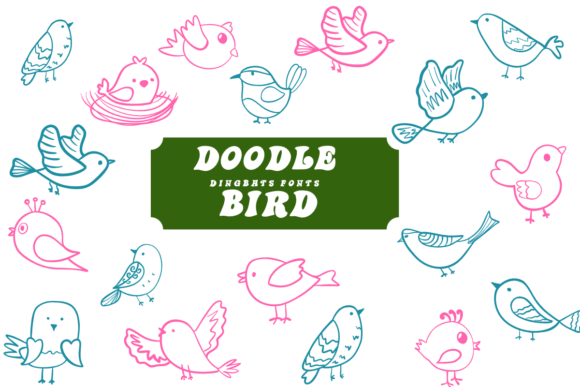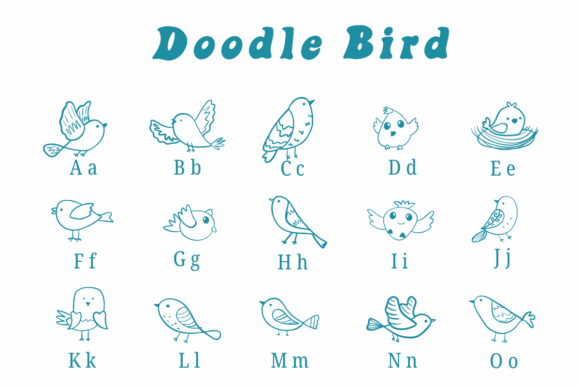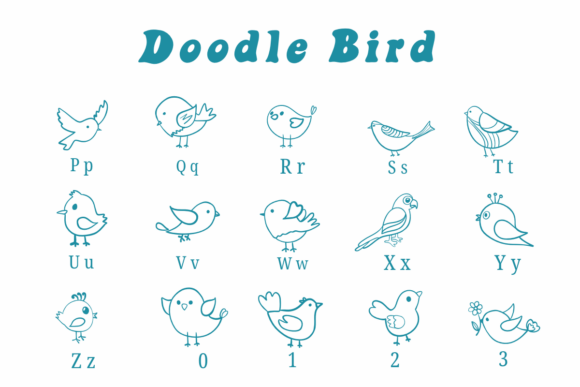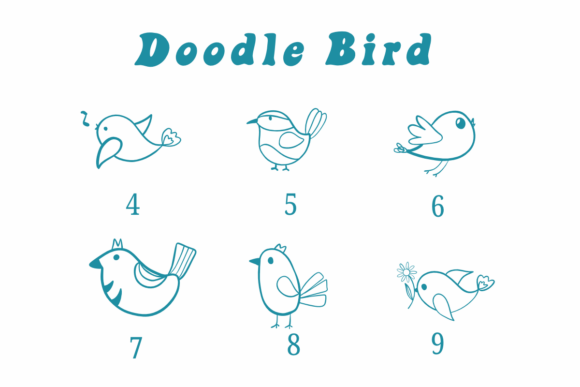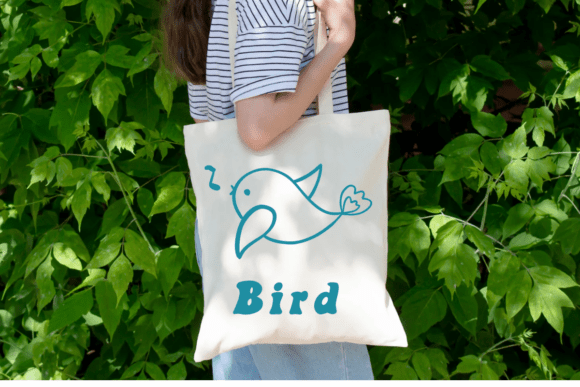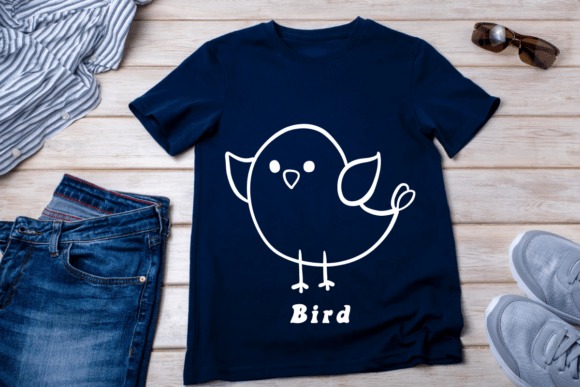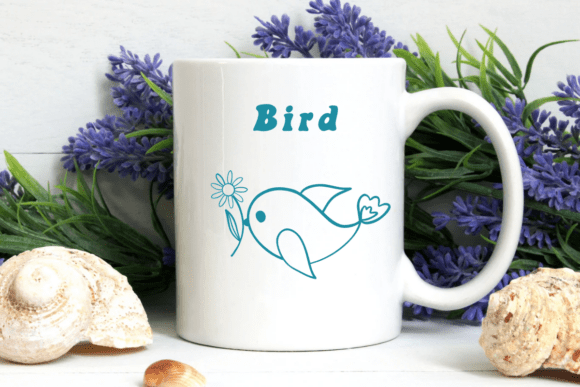
The Joy of Doodling: Bringing Imagination to Life
Have you ever sat down with a blank sheet of paper, a pencil in hand, and let your imagination run wild? The thrill of bringing a creative idea to life is one of the greatest joys of being a designer. And for those who love to doodle and sketch, there’s a new font that’s about to become your best friend – the Doodle Bird Font.
This charming dingbats font is more than just a pretty face; it’s a versatile tool that can elevate your creative projects to the next level. From wedding invitations to DIY crafts and decorations, the Doodle Bird Font is the perfect companion for designers who want to add a personal touch to their work. Its sketched style is both whimsical and sophisticated, making it a valuable asset for anyone looking to add some visual flair to their designs.
Doodle Bird Font Key Features
- Font Family: Doodle Bird Font is a hand-drawn, whimsical font designed for creative and playful purposes.
- Unique Characteristics: The font features a unique, hand-drawn style with subtle imperfections and irregularities, giving it a charming and organic feel.
Doodle Bird Font Review
Overall, I have mixed feelings about the Doodle Bird Font. While it’s undeniably quirky and fun, I’m not convinced it’s the right choice for every project. Here’s what I like and dislike about it.
- Unique character set: Doodle Bird Font’s hand-drawn style gives it a charming, whimsical feel that’s perfect for children’s books, educational materials, or other projects where a playful tone is essential.
- Expressive line work: The font’s irregular lines and curves make it well-suited for projects where you want to convey energy and movement.
- Works well at larger sizes: Doodle Bird Font looks great at larger font sizes, making it a good choice for headings or titles.
- Readability issues: While the font is great for headings, it can be difficult to read at smaller font sizes, which may limit its use for body text.
- Lack of consistency: The font’s hand-drawn style can be inconsistent, which may make it difficult to use for longer blocks of text.
- May not be suitable for formal projects: Due to its playful, whimsical nature, Doodle Bird Font may not be the best choice for formal projects or those that require a more serious tone.
In conclusion, while Doodle Bird Font is a fun and unique font, it’s not without its limitations. If you’re looking for a font to add a playful touch to your project, it may be worth considering. However, if you need a font for body text or a more formal project, you may want to look elsewhere.
Doodle Bird Font: A Practical Application Guide
Getting Started with Doodle Bird Font
Tips for Getting the Most Out of Doodle Bird Font
To get the most out of the Doodle Bird Font, try using it in conjunction with other creative fonts or graphics. Experiment with different text styles and arrangements to add visual interest to your designs. You can also use the font to create playful headings or titles.
The Doodle Bird Font is perfect for creating playful and whimsical designs, such as children’s books, party invitations, or social media graphics. You can also use it to add a touch of personality to your blog posts or website content.